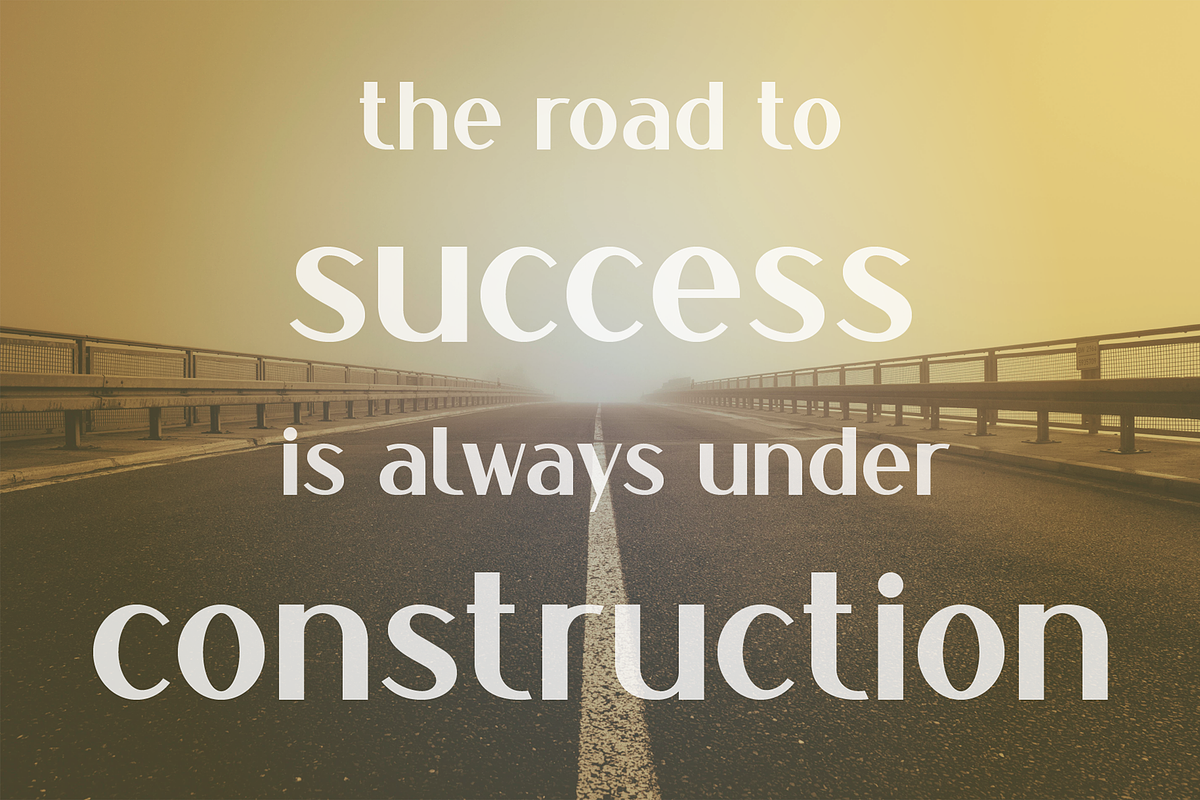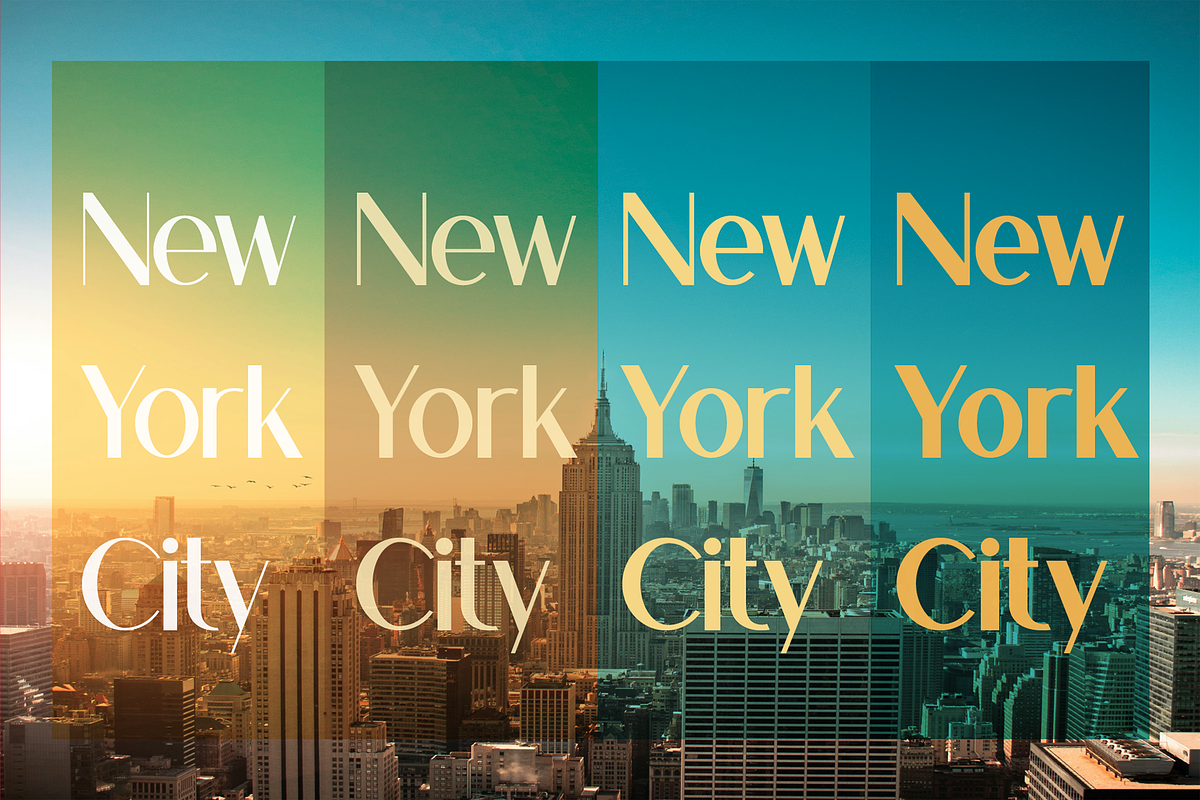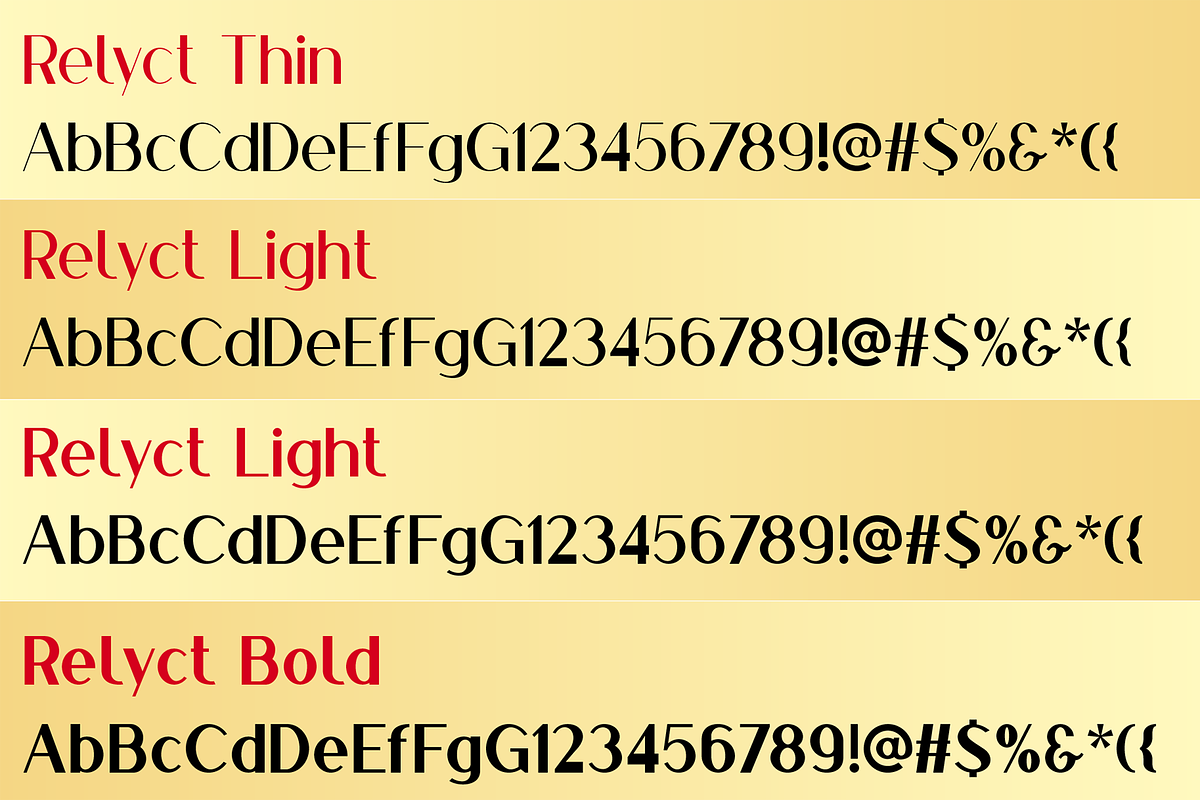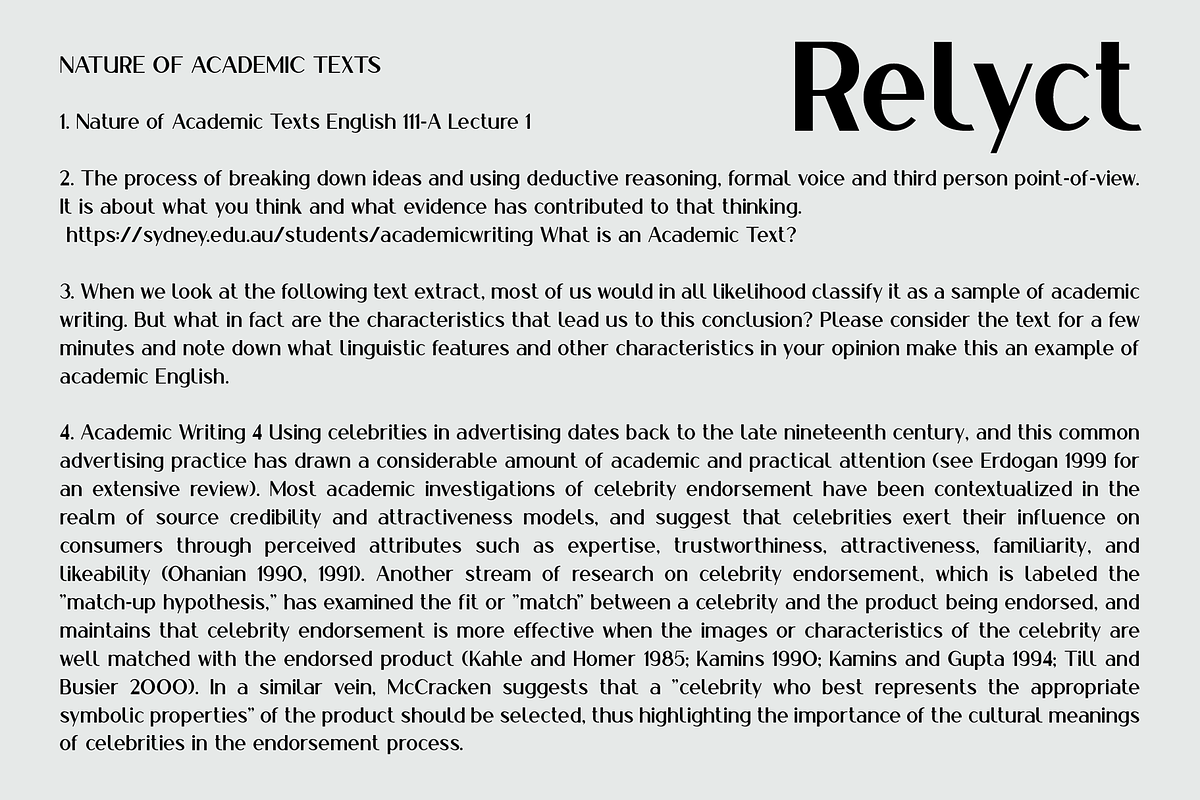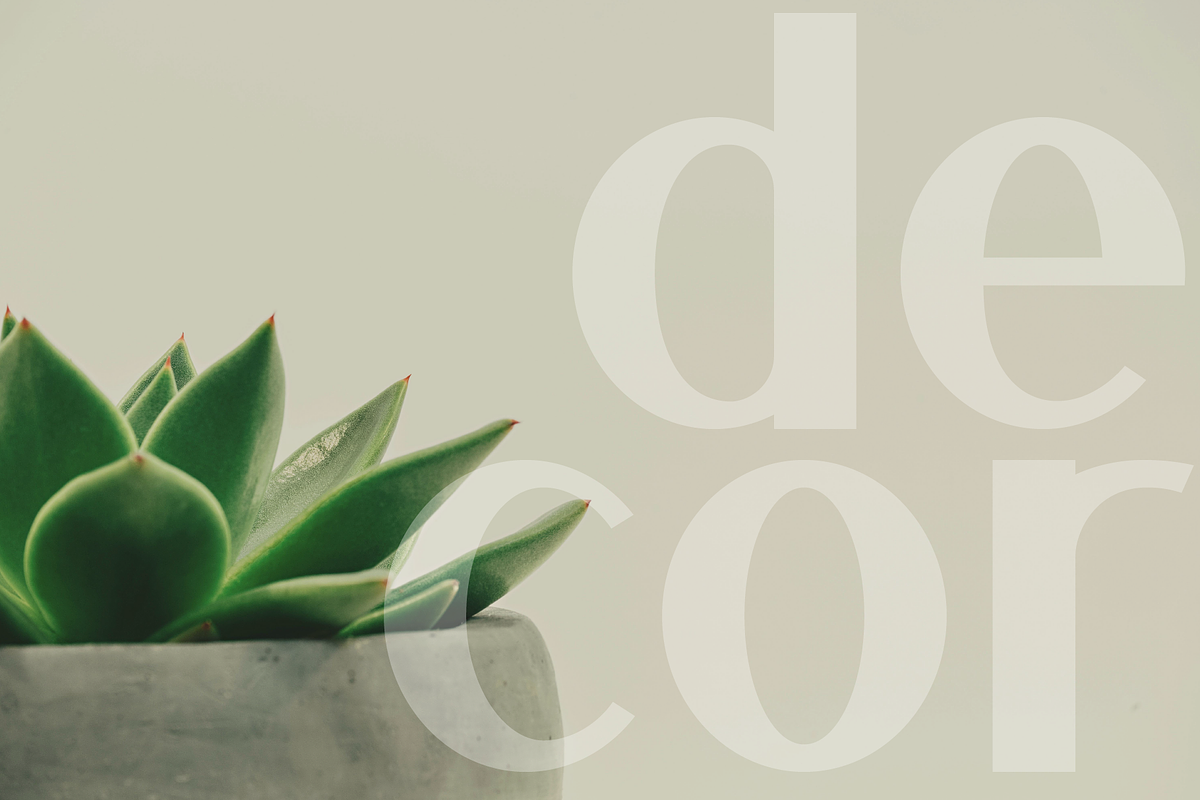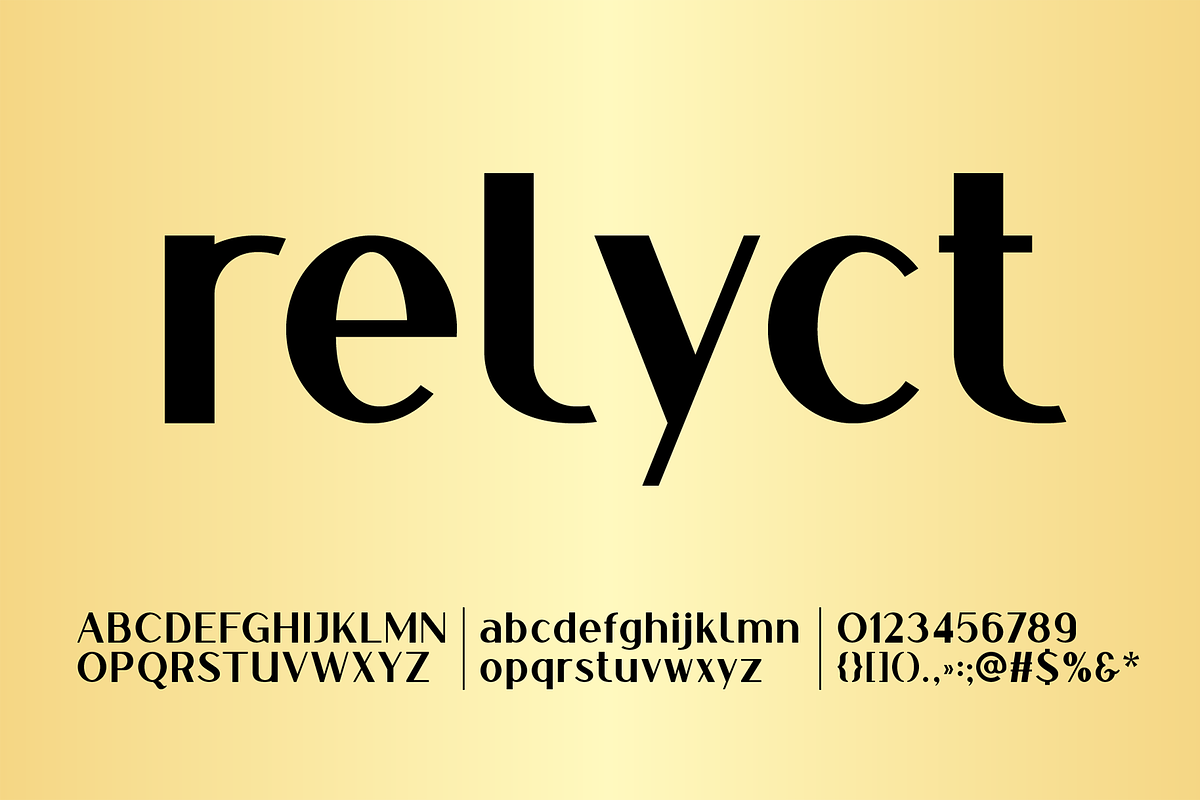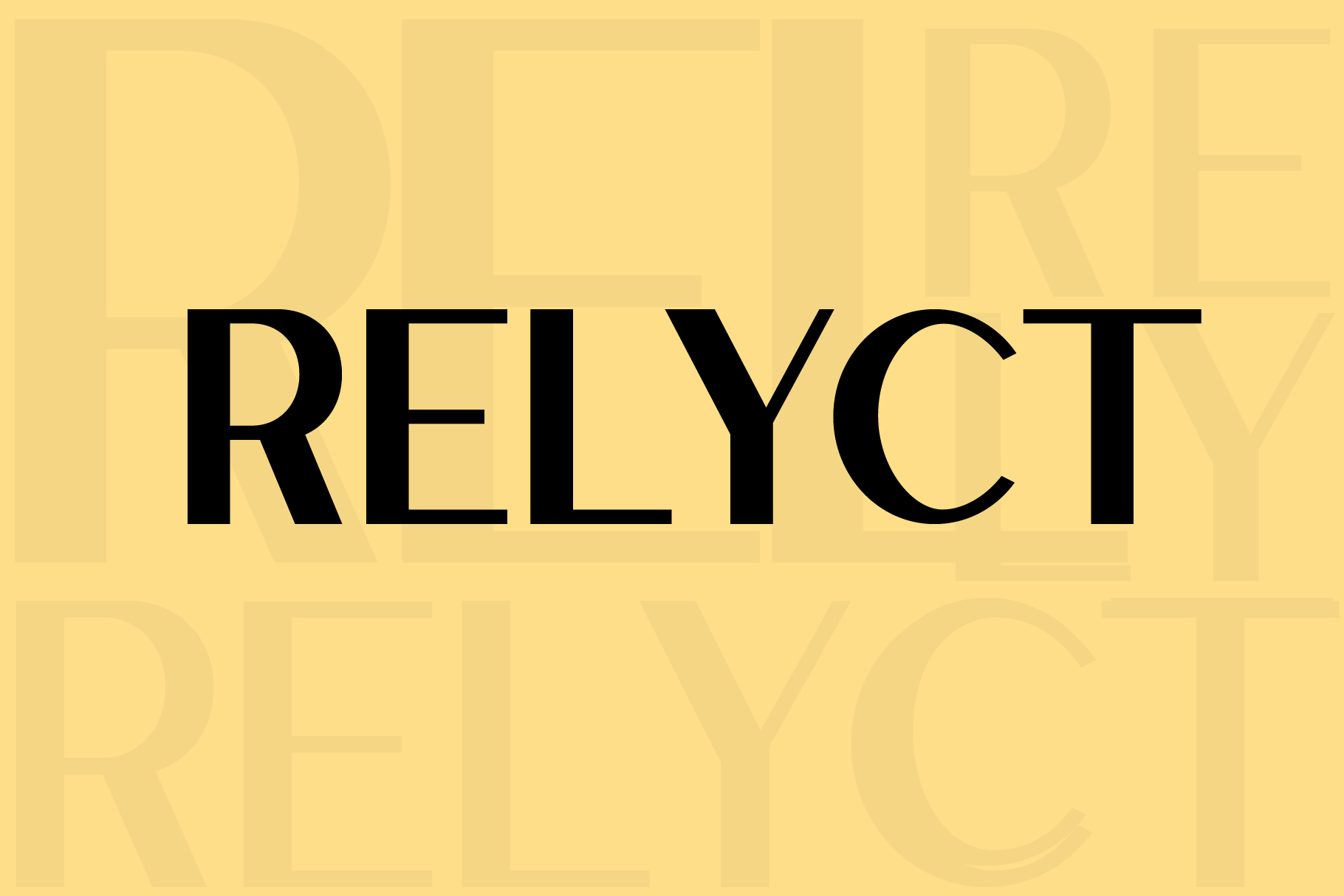
Relyct font family
Relyct is a sans serif narrow font, includes upper and lower case characters, Latin, Cyrillic, Latin Eastern Europe, Turkish, Baltic and other, 500+ symbols.
Relyct family have the 4 types of thickness.
Relyct fonts will be useful in developing a brand, creating posters and other graphic products, and for word processing.